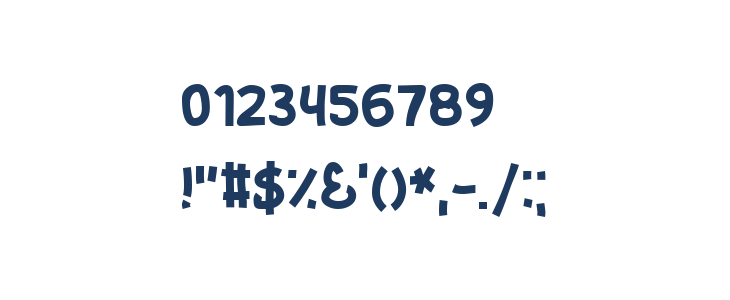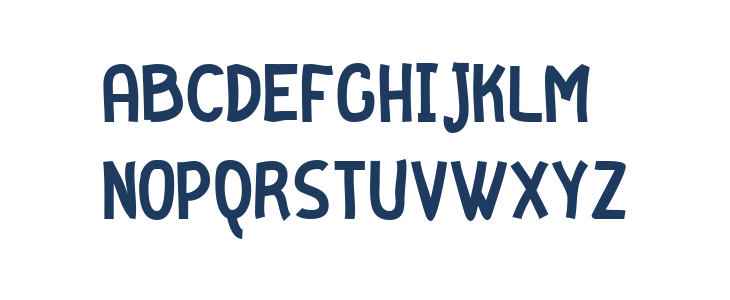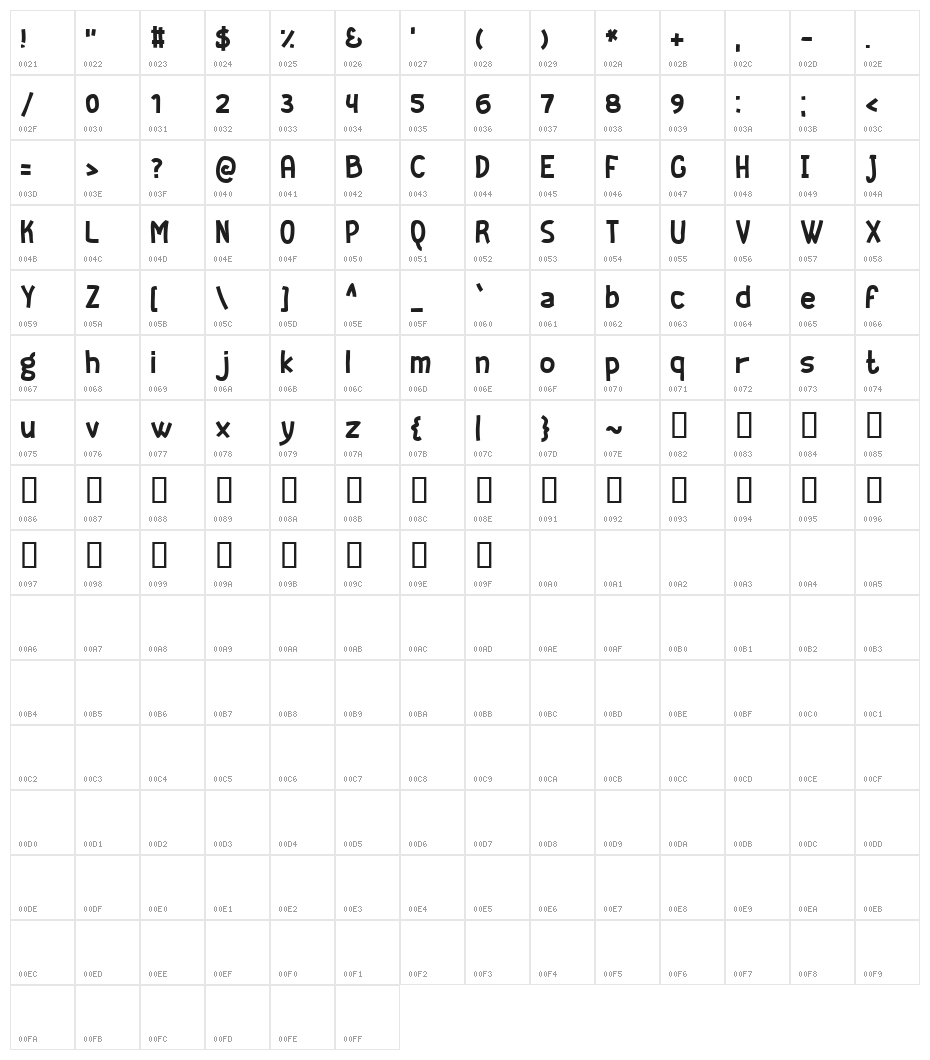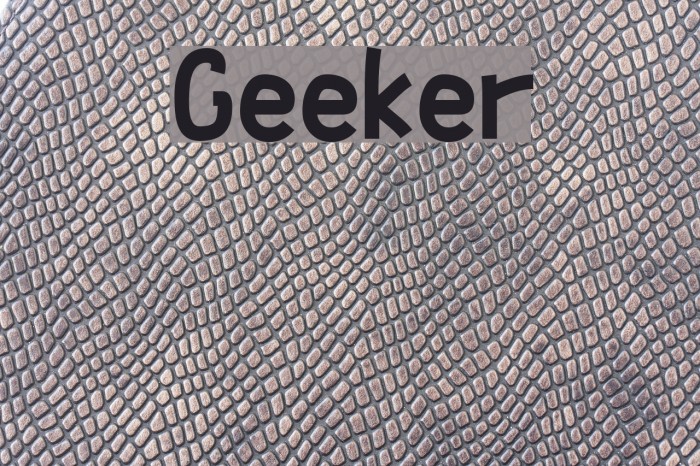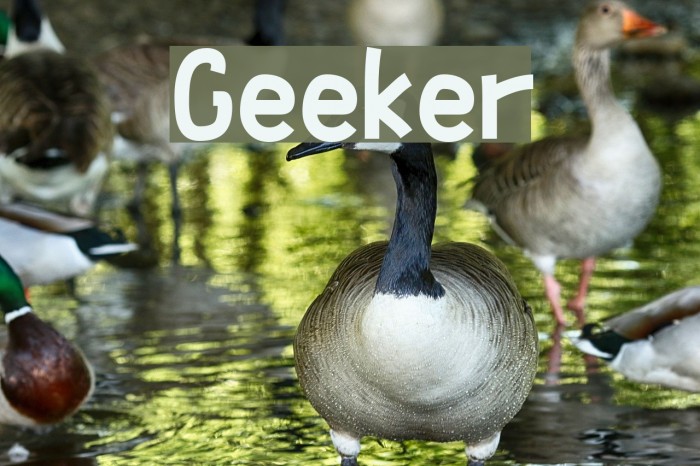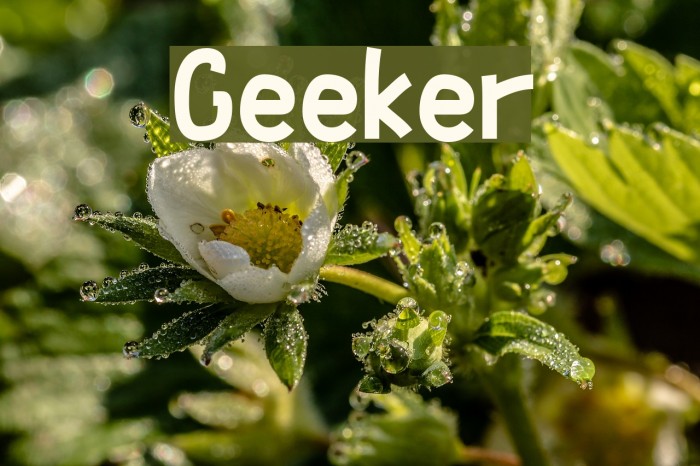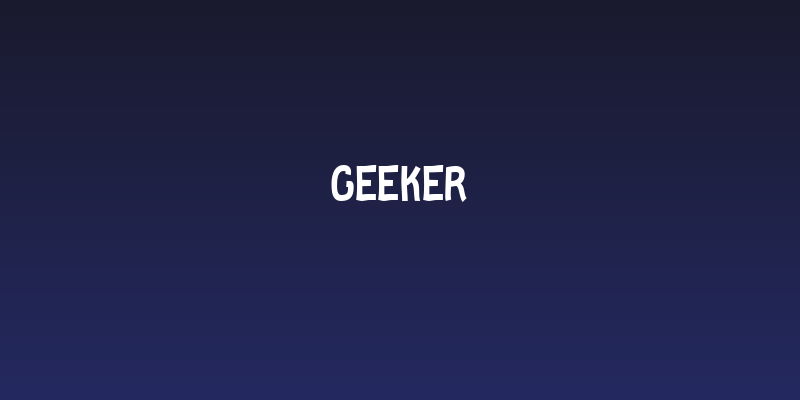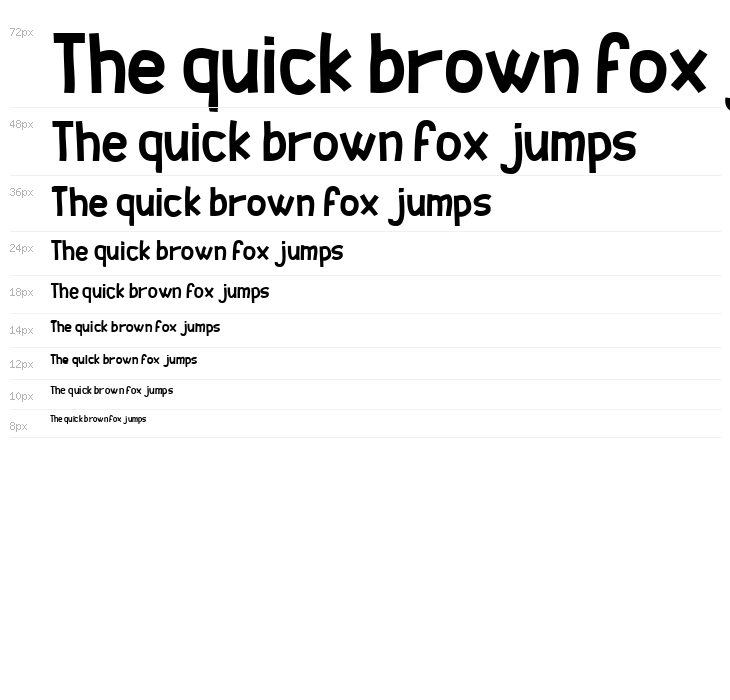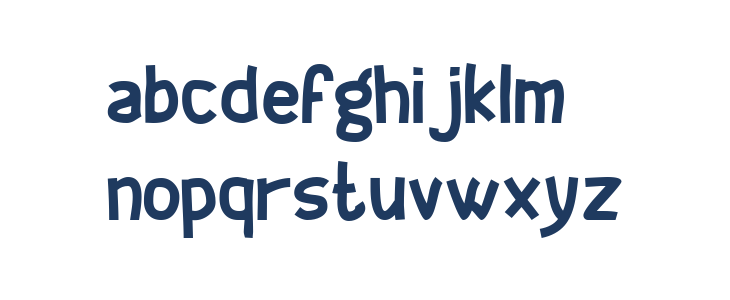
Geeker Font
Geeker Description
This font features a playful and bold style with slightly irregular shapes, giving it a hand-drawn appearance. The uppercase letters are tall and slightly narrow, while the lowercase letters maintain a consistent width, adding to its quirky charm. The numerals are rounded and align well with the overall aesthetic, making them easy to read. Special characters are creatively designed, enhancing the font's unique personality. The strokes are thick, providing a strong presence on any medium.
| Overall Style | Playful, Quirky |
| Proposed Projects | Ideal for children's books, playful branding, casual invitations, and creative posters. |